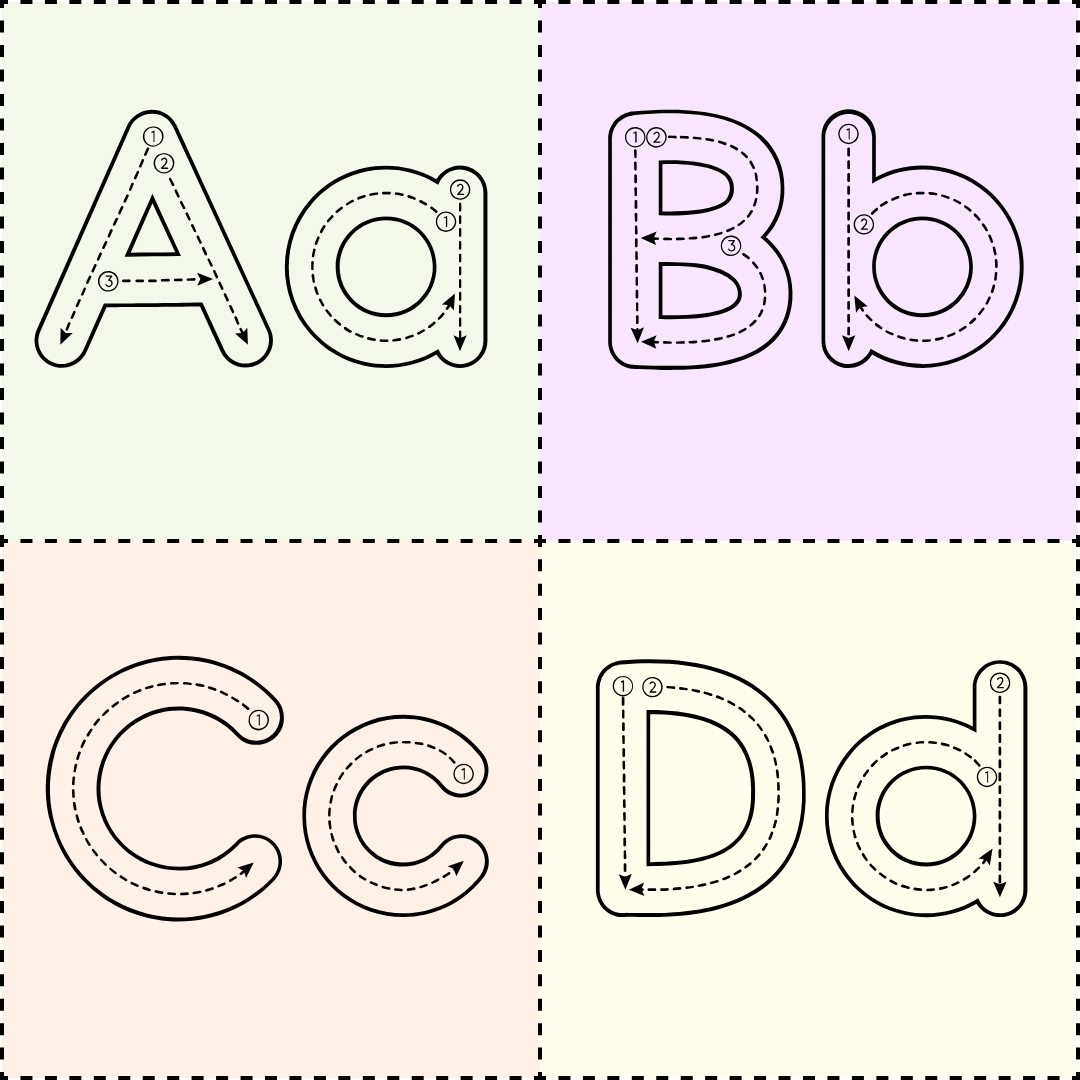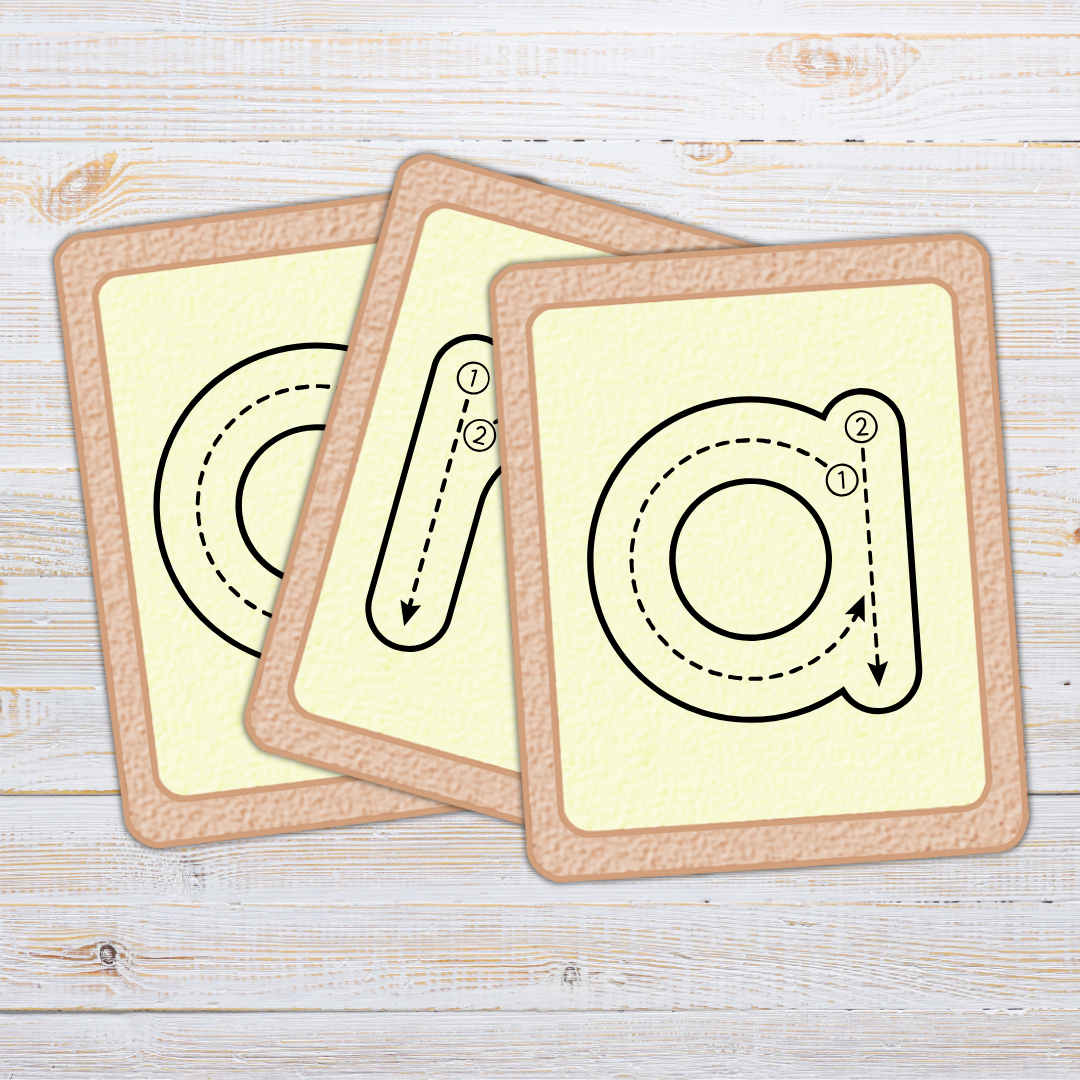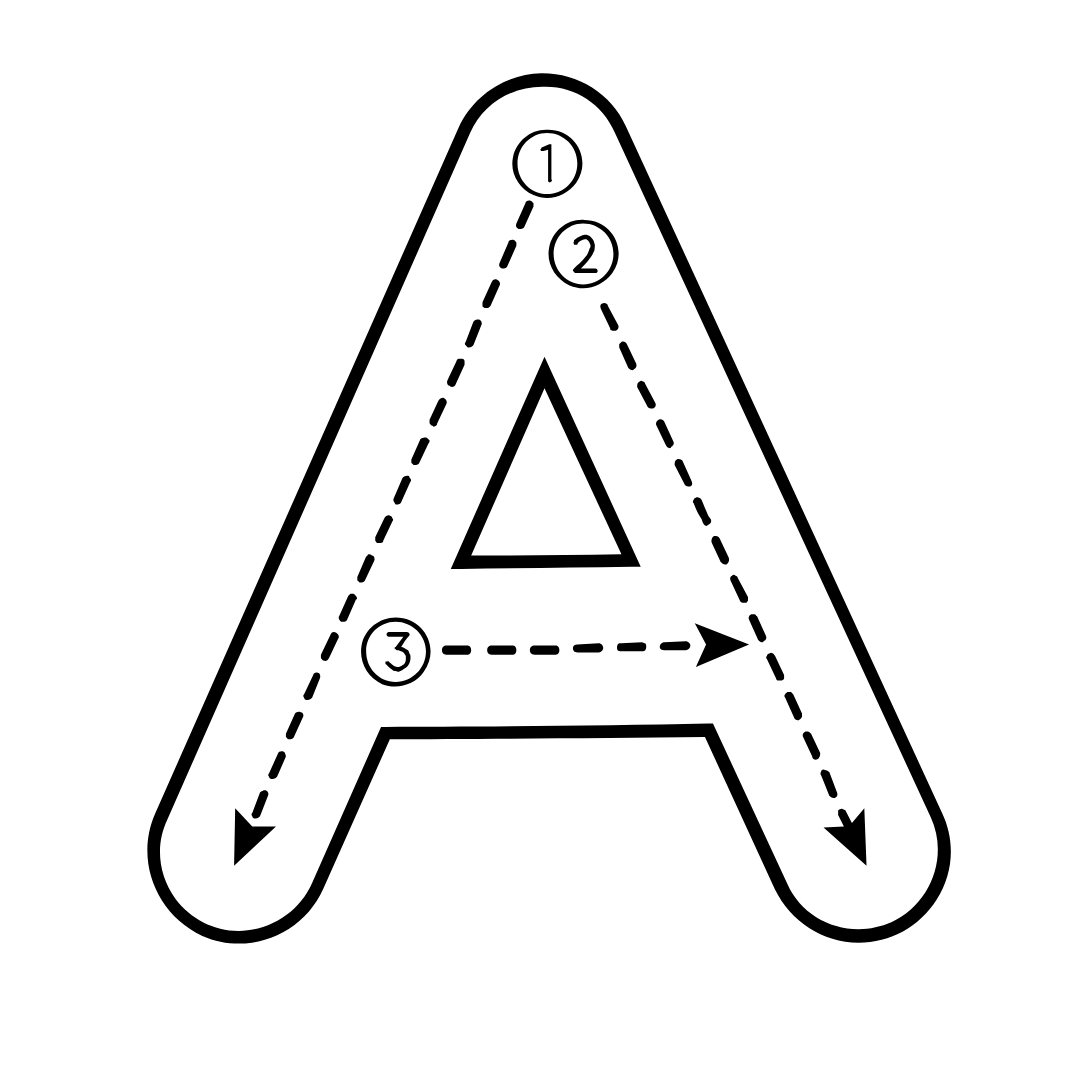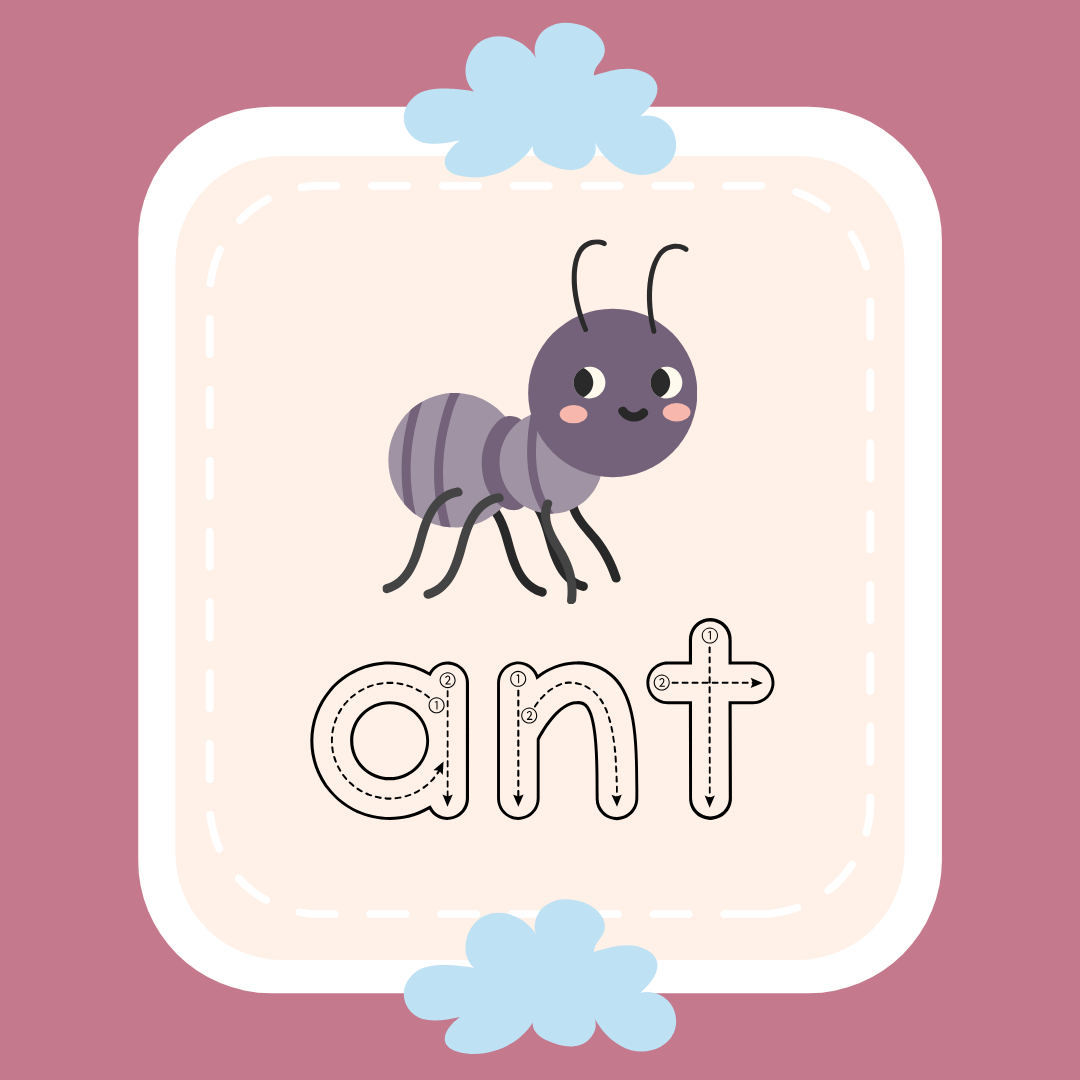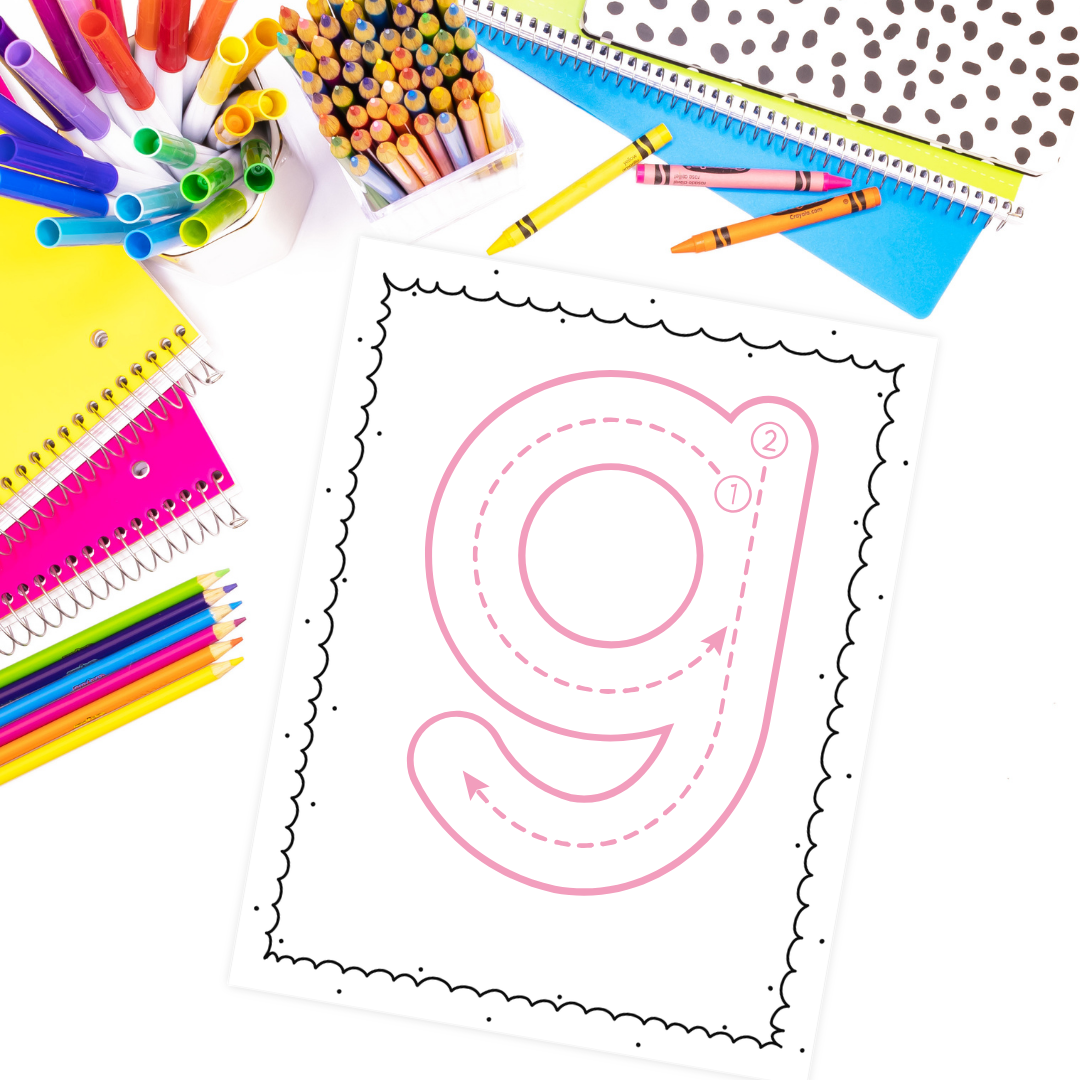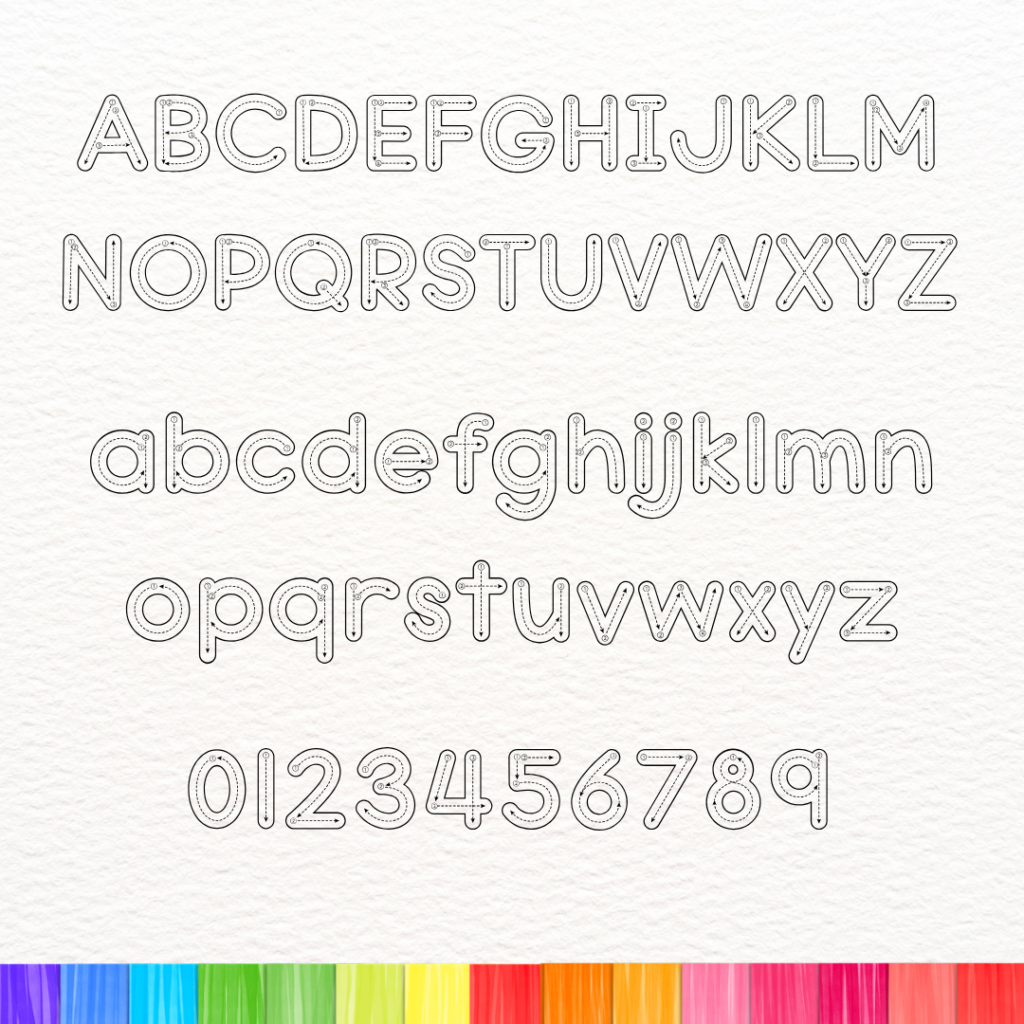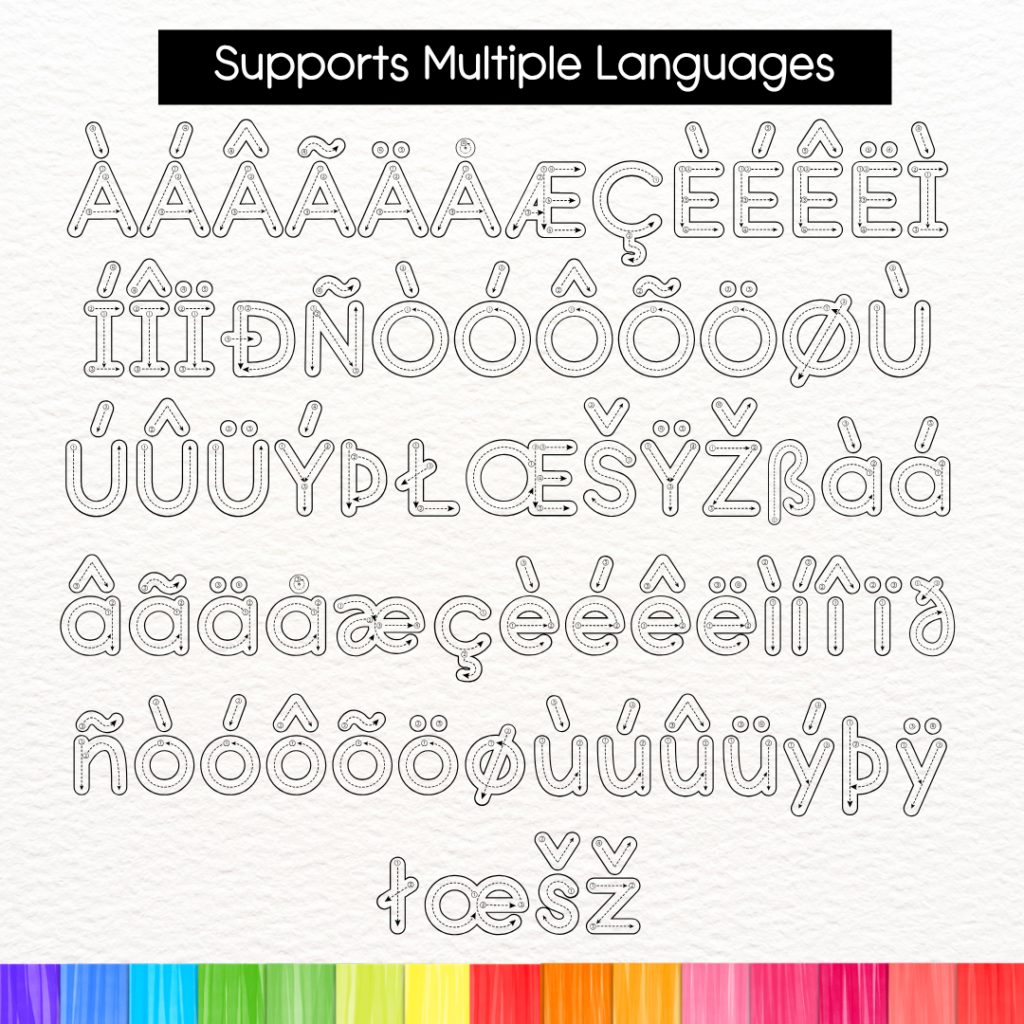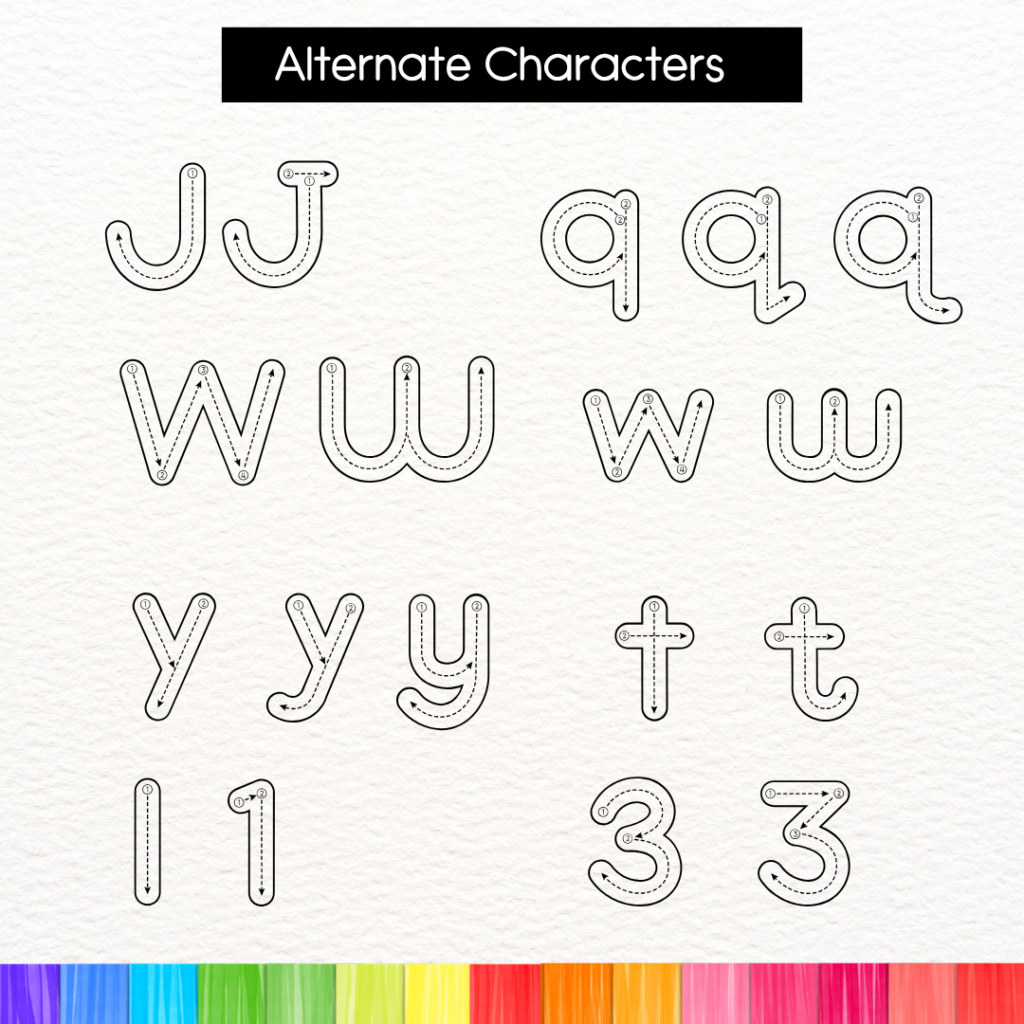
Alphabet Tracing Font for Handwriting Practice - Diary letter Tracing
This alphabet tracing font with arrows features clear directional stroke guides and number indicators, best used for letter tracing practice, handwriting worksheets, and toddler fine motor skill activities. Designed as a bubble tracing font, it makes letter formation intuitive for Pre-K, kindergarten, and primary students.
Mastering proper letter formation is a fundamental step in early childhood education and fine motor development. This alphabet tracing font with arrows and numbers provides clean, structured guide paths that assist Pre-K, kindergarten, and primary grade students in learning correct stroke order and directional flow.
Whether you are creating customized student name practice sheets, daily morning work journals, letter recognition flashcards, or handwriting practice booklets, this versatile font simplifies resource creation for teachers, homeschoolers, and educational content creators.
Easily design custom handwriting practice pages, seasonal tracing cards, alphabet centers, and personalized name-tracing strips with Diary Letter Tracing font.